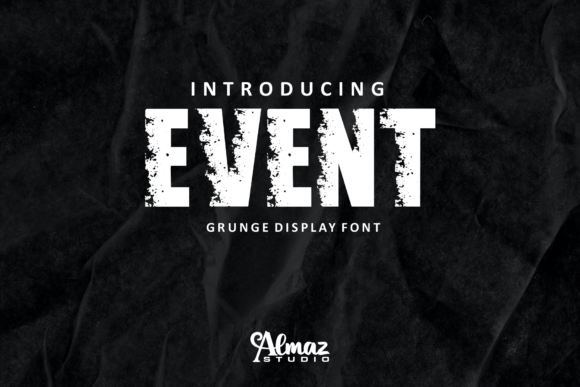
Looking for the perfect font to make your brand or logo stand out? Look no further than Event Font! Created by almazstd24, Event Font is a bold, grunge font that is perfect for those looking to add a little edge to their designs.
As one of the best fonts for bold embroidery, Event Font is versatile enough to be used in both casual and formal settings. Its strong, modern sans serif display style makes it a great choice for logos, brandings, headlines, and more.
The grunge, techno, futuristic, manly, and sporty elements of this font make it a popular choice among those looking to make a statement. The white patches in the letters add a unique touch that sets Event Font apart from other display fonts.
Event Font is perfect for those looking to create text headlines and advertisements that stand out from the crowd. Its rough and edgy appearance adds personality and character to any design.